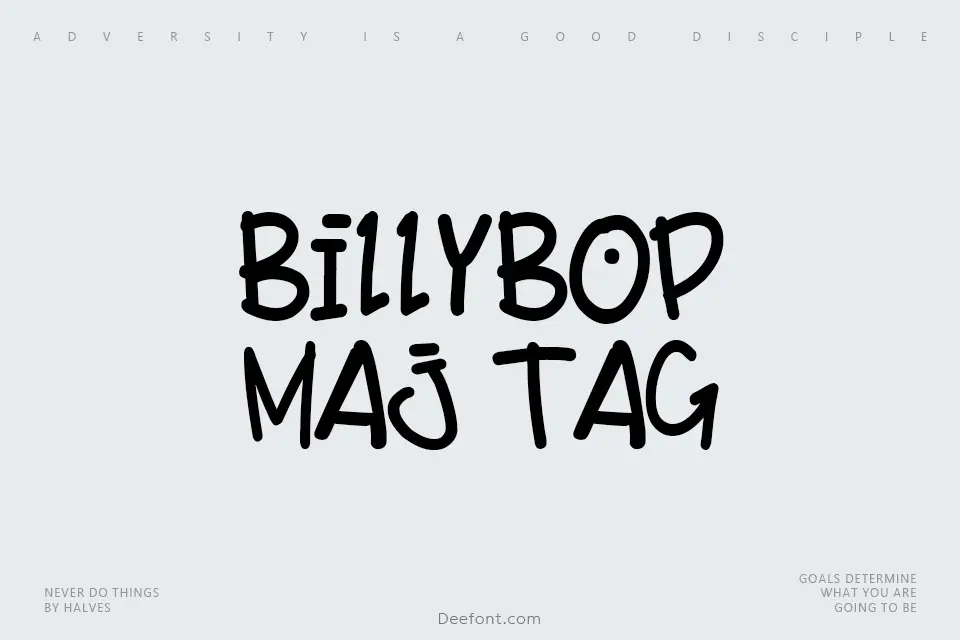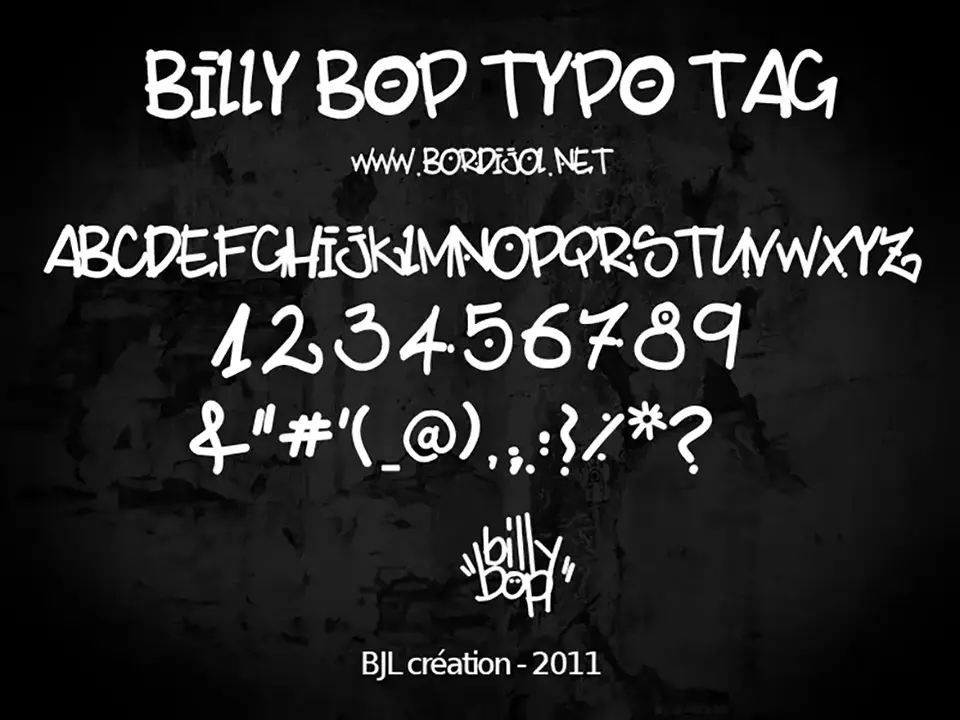
BillyBop Maj Tag Font
BillyBop Maj Tag is a vibrant script and graffiti font designed for creative typography projects. This free typeface features bold, playful letterforms with an urban tag style, perfect for posters, logos, and decorative designs. Originally created in 2011, the font delivers authentic graffiti aesthetics with smooth curves and dynamic character shapes. Ideal for designers seeking eye-catching display typography with a contemporary edge, this font brings artistic flair and personality to any creative endeavor.